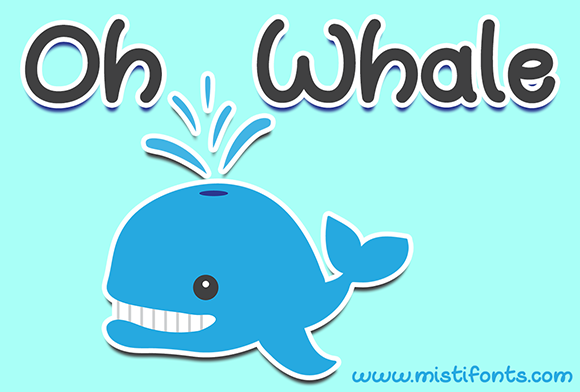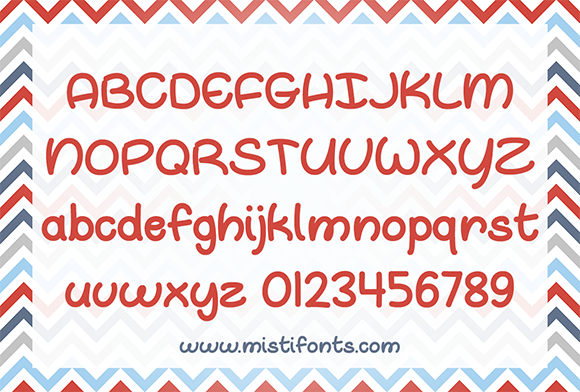
HomeScript FontsOh Whale Font Script Fonts Oh Whale Font FacebookXPinterestWhatsApp Oh Whale Font Poster 2 About Oh Whale Font Oh Whale is a cute, handwritten font that is perfect for your design and craft projects! DOWNLOAD ON CREATIVE FABRICAThis font is sold and delivered by Creative Fabrica. Font Canyon may earn a commission if you buy through this link. People also explored Deathblood Font Ink Scribble Font Arkitivity Font Enrty Keyhole Font Lucky Walter Font Nooleigh Font Margie Script Winter Flowers Font Spring Time Font 302 0 TagsOh Whale Font Previous articleBuffalo FontNext articleBetter Together Font LEAVE A REPLY Cancel reply Comment: Please enter your comment! Name:* Please enter your name here Email:* You have entered an incorrect email address! Please enter your email address here Website: Save my name, email, and website in this browser for the next time I comment. Personal Use Free Masha Song Personal Use Free Read more about this font Miracles Personal Use Free Read more about this font Elsabetha Personal Use Free Read more about this font Vogue Font Personal Use Free Read more about this font BLOG Free Fonts Risk: Why Free Fonts Can Be Dangerous for Designers Free Fonts Risk: Why Free Fonts Can Be Dangerous for Designers Using free fonts is a common practice in web and graphic design. However, the... Where to Buy American Fonts Online in 2024 Using Fonts in Digital Marketing: Tips to Strengthen Your Brand Identity Transform Your Website: Elevate Your Typography with 7 Best Web Font Generators